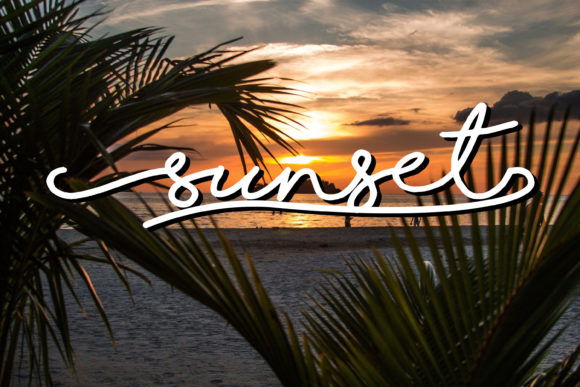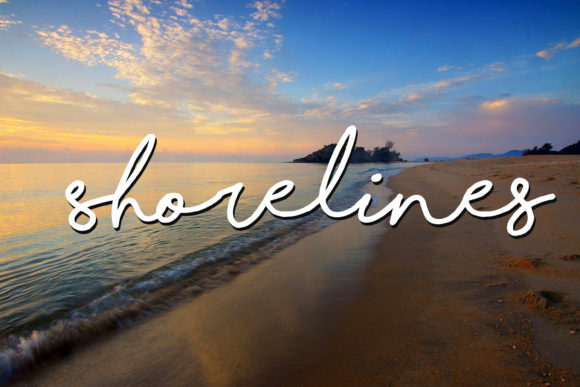
Beach Holiday Font
db-ku.com - Script & Handwritten -- Beach Holiday is a sweet handwritten font that is made with great care in order to produce the expected outcomes. It is perfect for product packaging, branding project, magazine covers, social media, wedding, or just used to express words above the background.